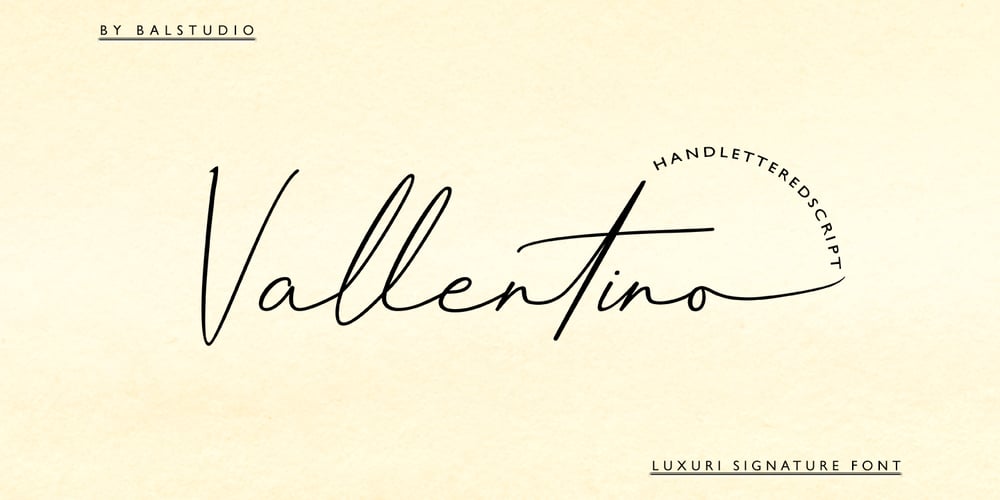
Vallentino Font Family was designed by Iqbal Amsar Hidayat and published by Bal Studio. Vallentino contains 1 styles and family package options. Vallentino is a stylish and elegant handwritten font, which looks like a signature, this font is deliberately made with unique ligatures and alternatives.Vallentino is perfect for signatures, branding, logos, business cards, posters, invitations, greeting cards, news, product packaging, blog posters, all including personal charms etc.This font is also equipped with unique and interesting ligatures, by using these ligatures you can give a real handlettered style:ab ah ak al am an ar at ch ck cr eb el em en er es et ff ht il im in it ll mm ng nn nt of oh oi ol on or oo od ou ow oy sh ss st th tt ut wh Th ftMultiple Language Support:ŠÀÁÂÃÄÅÆÇÈÉÊËÌÍÎÏŸŽÐÑÒÓÔÕÖØÙÚÛÜÝßàáâãäåæçèéêëìíîïñòóôõöøùúûüýÿŒœšThank you for your purchase!